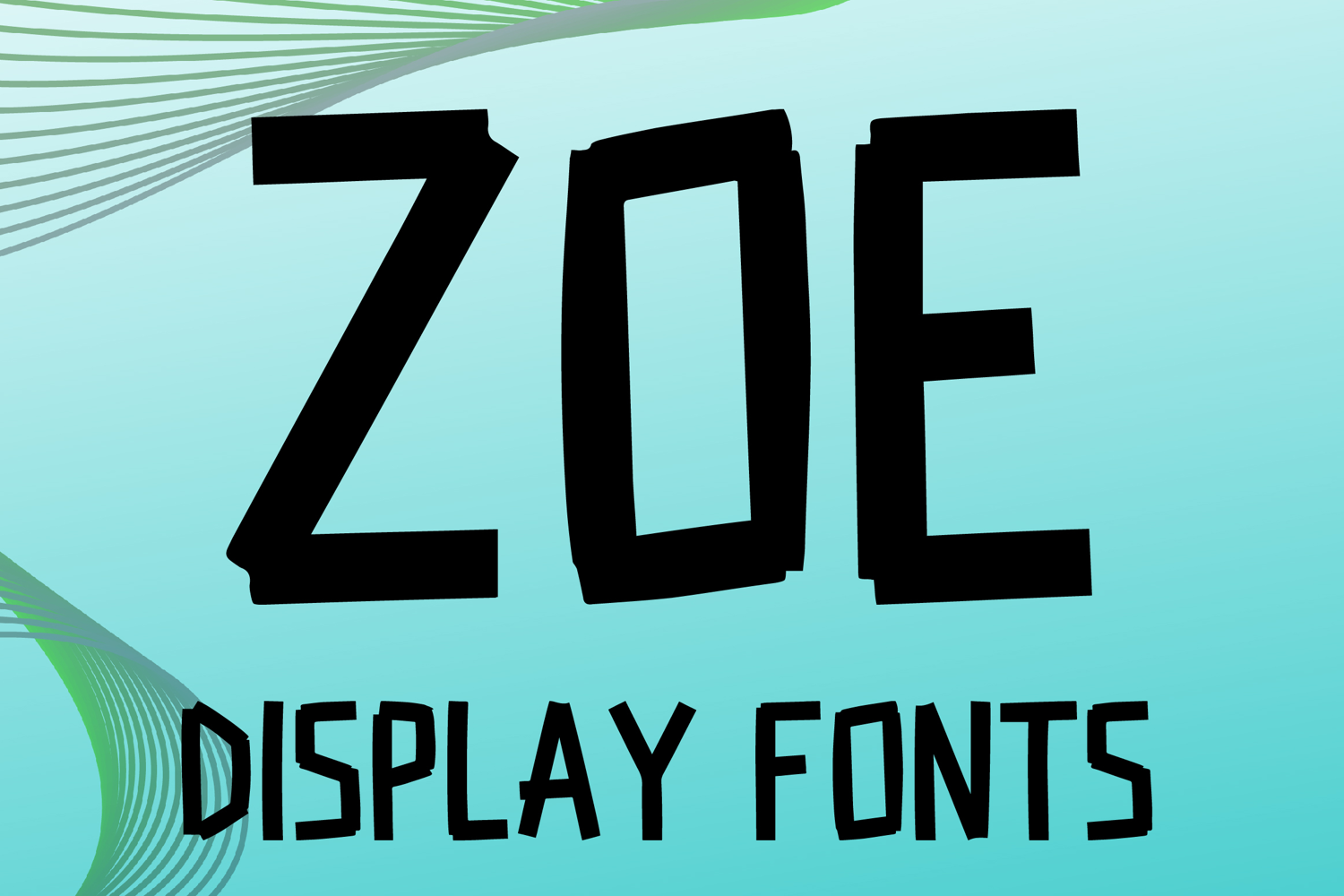
ZOE
ZOE is a bold display font with a tall handcrafted style and strong modern character. Its uppercase letterforms feature thick strokes, slightly uneven edges, and clean geometric structure that create a confident, stylish, and eye-catching look. Designed with uppercase letters A–Z and numbers 0–9, ZOE is perfect for branding, posters, packaging, logos, headlines, social media graphics, and creative projects that need a bold and memorable statement.